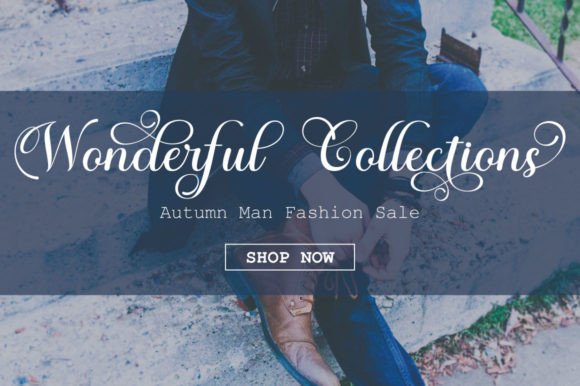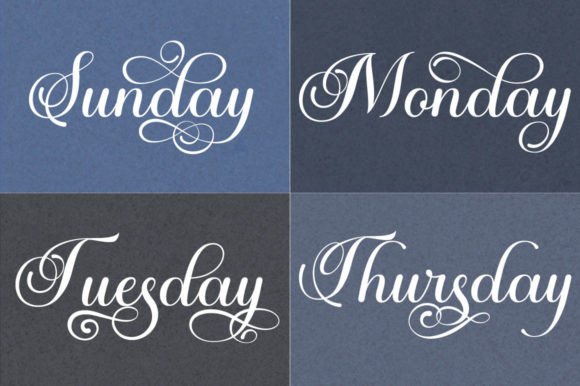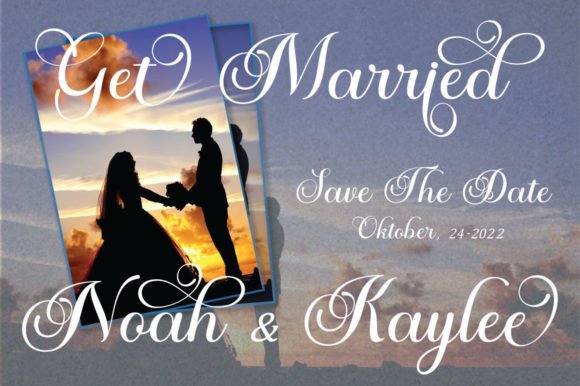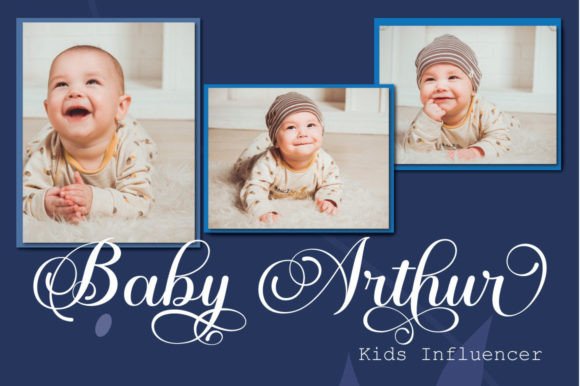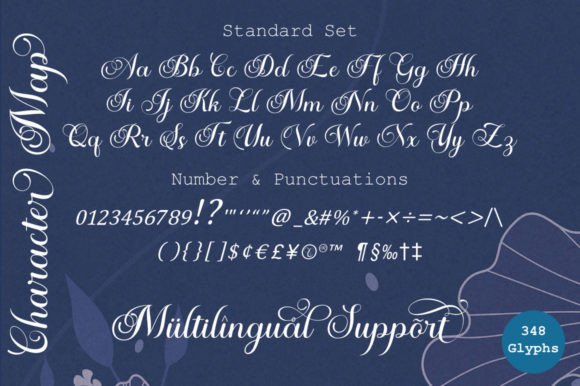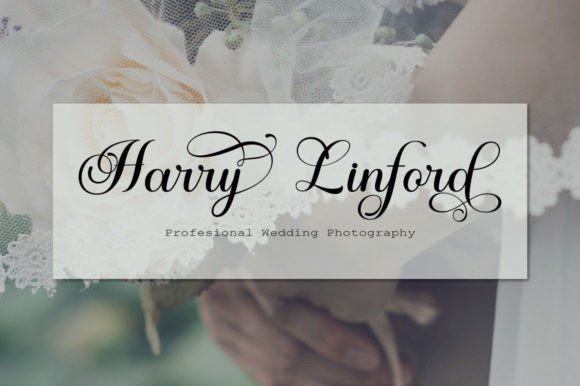
Introduction to Autumn Flowers Font
There’s something magical about the first moment you see your creative project come to life – the moment when all the hard work, late nights, and endless cups of coffee finally pay off. For designers, this feeling is especially sweet, as we pour our hearts and souls into every detail, from the color palette to the typography. And speaking of typography, have you ever stumbled upon a font that perfectly captures the essence of a season? That’s exactly what the Autumn Flowers Font does – it distills the vibrant energy and elegance of autumn into a stunning, high-quality design resource.
This beautiful script font is more than just a pretty face – it’s a valuable tool for designers looking to add a personal touch to their projects. With its transparent background and free download option, it’s easy to see why Autumn Flowers Font has become a favorite among creatives. Whether you’re working on a wedding invitation, fashion branding, or logotype, this font is sure to bring a touch of exuberant energy to your design.
Key Features of Autumn Flowers Font
- High-quality design resource for creative projects, including invitations, greeting cards, and more.
- Features a transparent background, allowing for easy customization and integration with other design elements.
- Includes 20 unique and intricate floral designs, perfect for adding a touch of elegance to any project.
- Each design is available in three different sizes (Small, Medium, and Large) to accommodate various design needs.
- Designed with a delicate and whimsical style, making it an ideal choice for feminine and nature-inspired designs.
Honest Review: Autumn Flowers Font
I recently stumbled upon the Autumn Flowers Font, and I must say it’s a beautiful addition to any design project. The high quality of this font is immediately apparent, with delicate and intricate details that make it perfect for creative projects.
- Delicate and intricate details
- Transparent background for customization
- May not be suitable for bold or modern designs
- Limited character set may require additional font combinations
Overall, I’m quite impressed with the Autumn Flowers Font. It’s a lovely addition to any design resource collection, and I appreciate the effort that went into creating this beautiful font.
The Autumn Flowers Font is a high-quality design resource ideal for creative projects. This font is a perfect addition to any autumn-themed project, offering a unique and elegant touch.
To get the most out of the Autumn Flowers Font, use it with a transparent background to create a stunning visual effect. Experiment with different font sizes and styles to achieve the desired look.
The Autumn Flowers Font is perfect for:
- Autumn-themed invitations and greeting cards
- Decorative quotes and sayings
- Wedding stationery and decorations